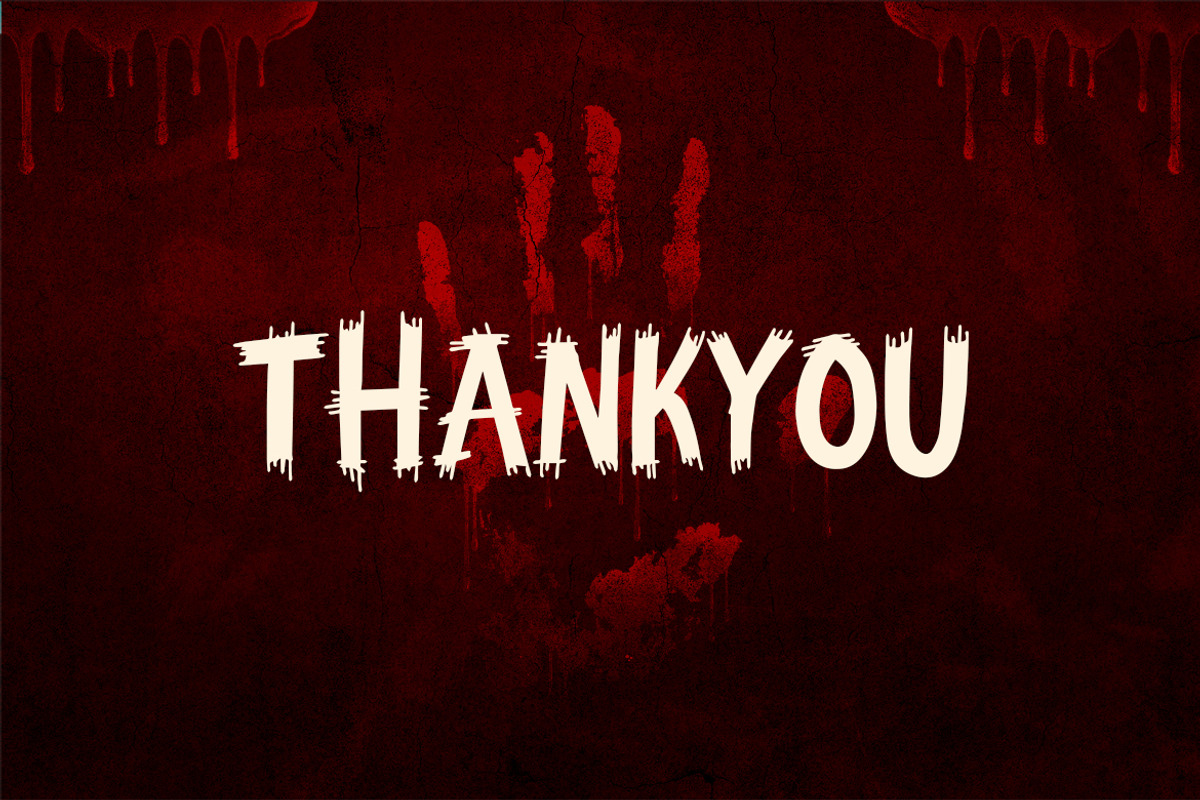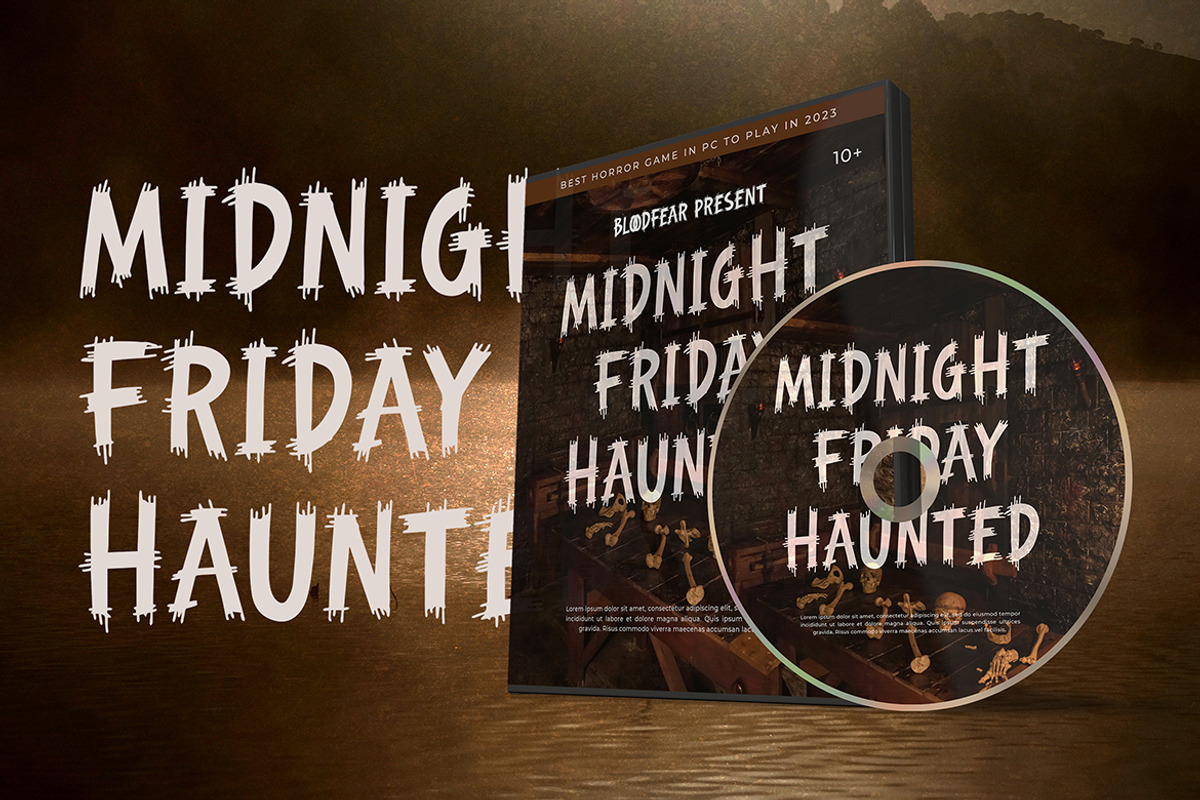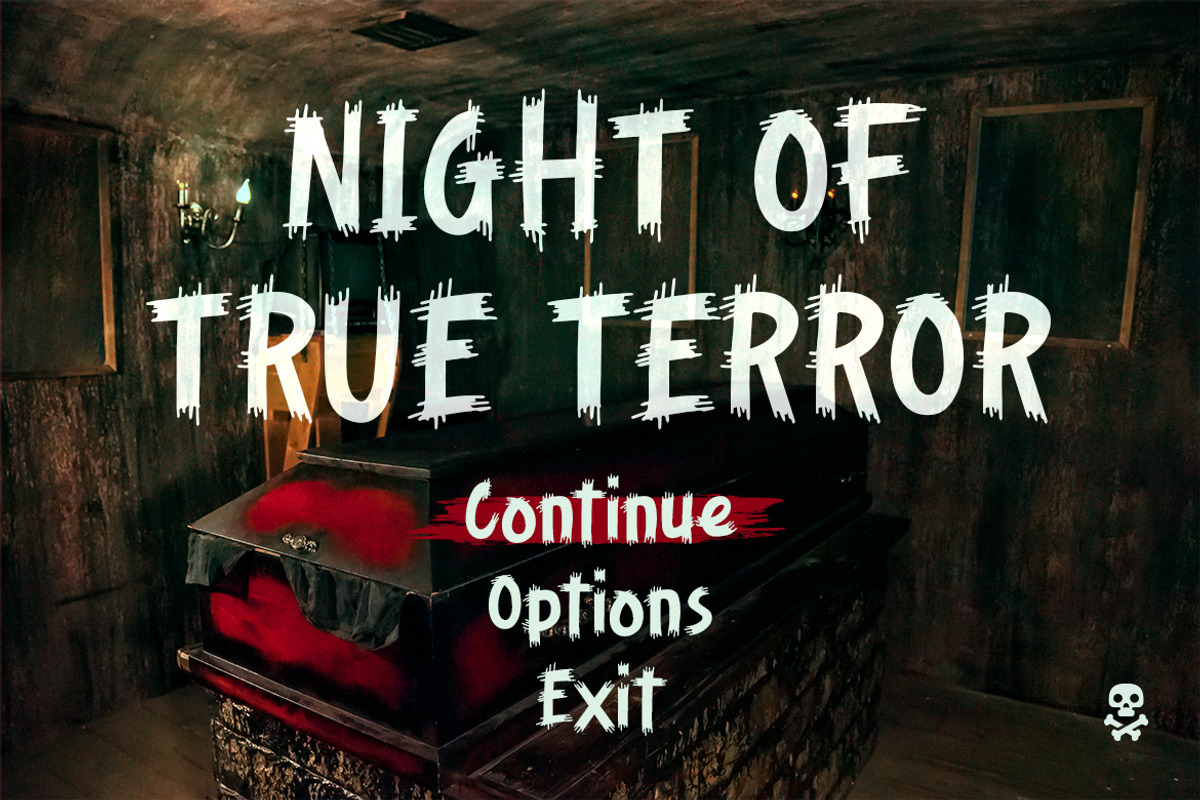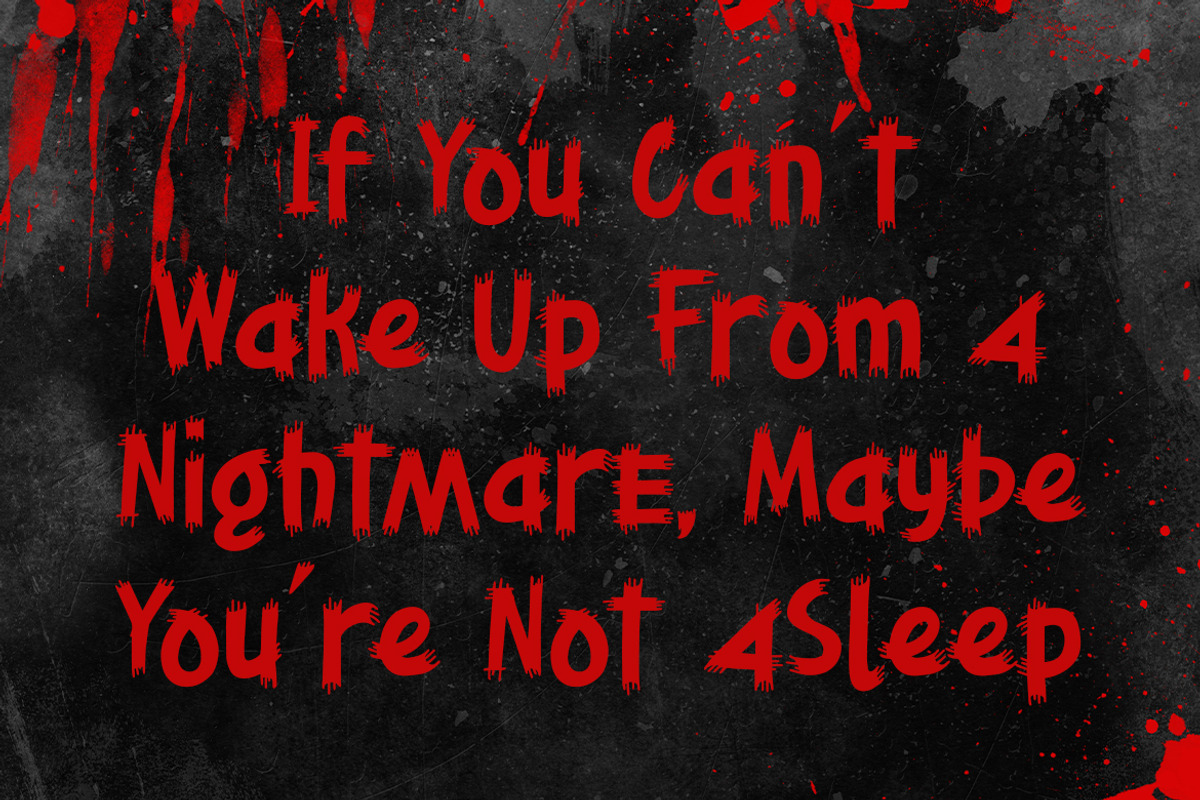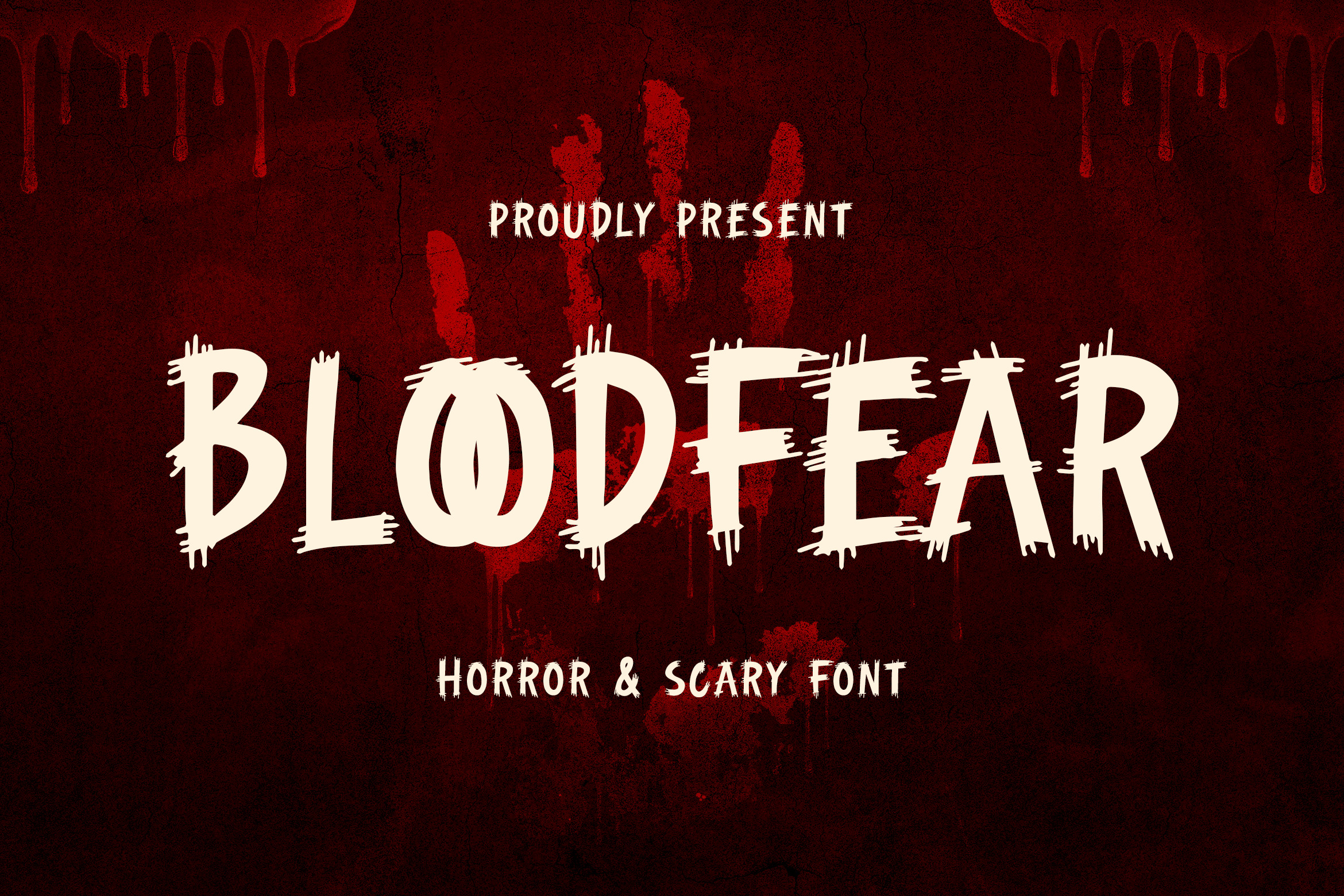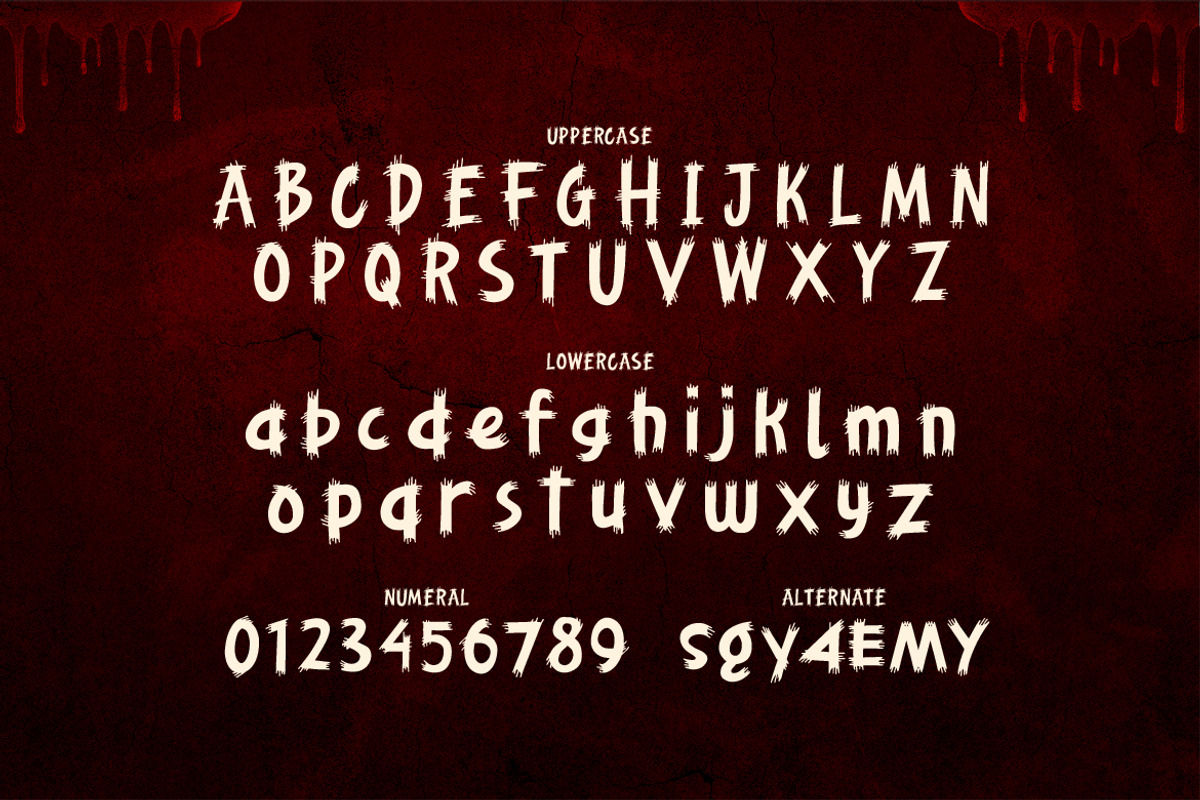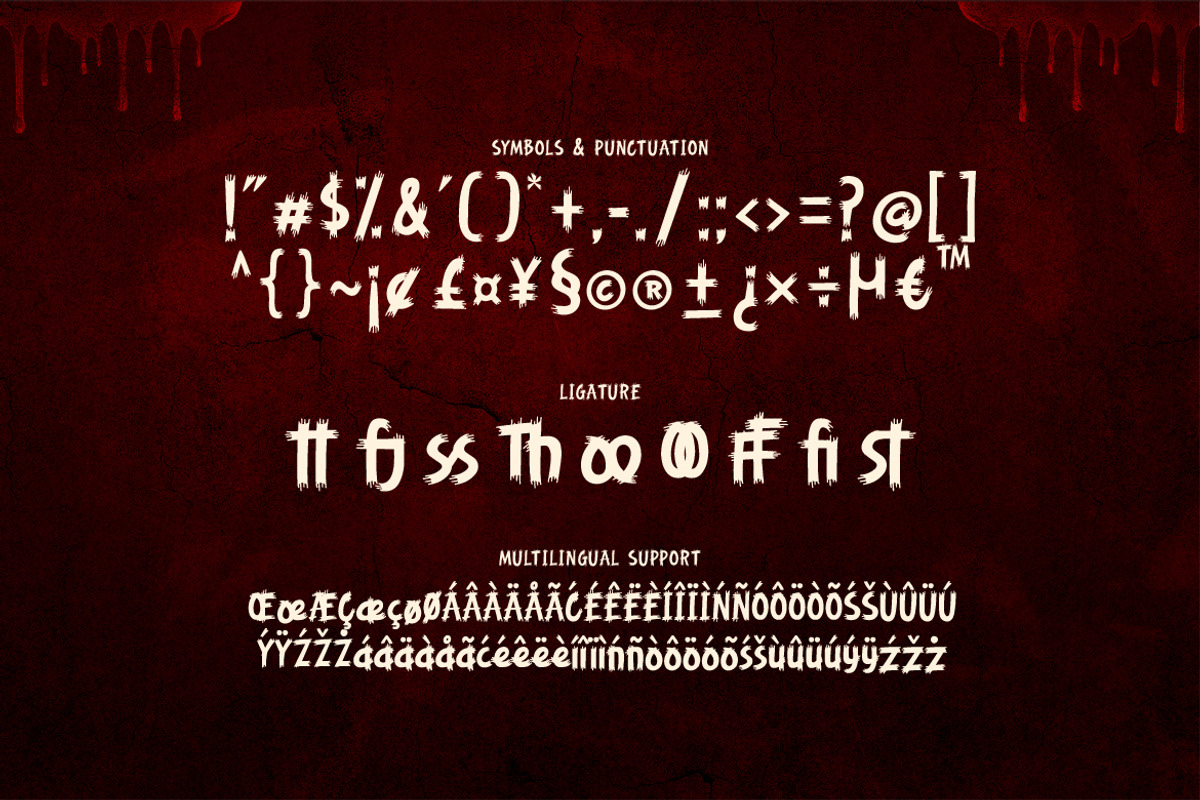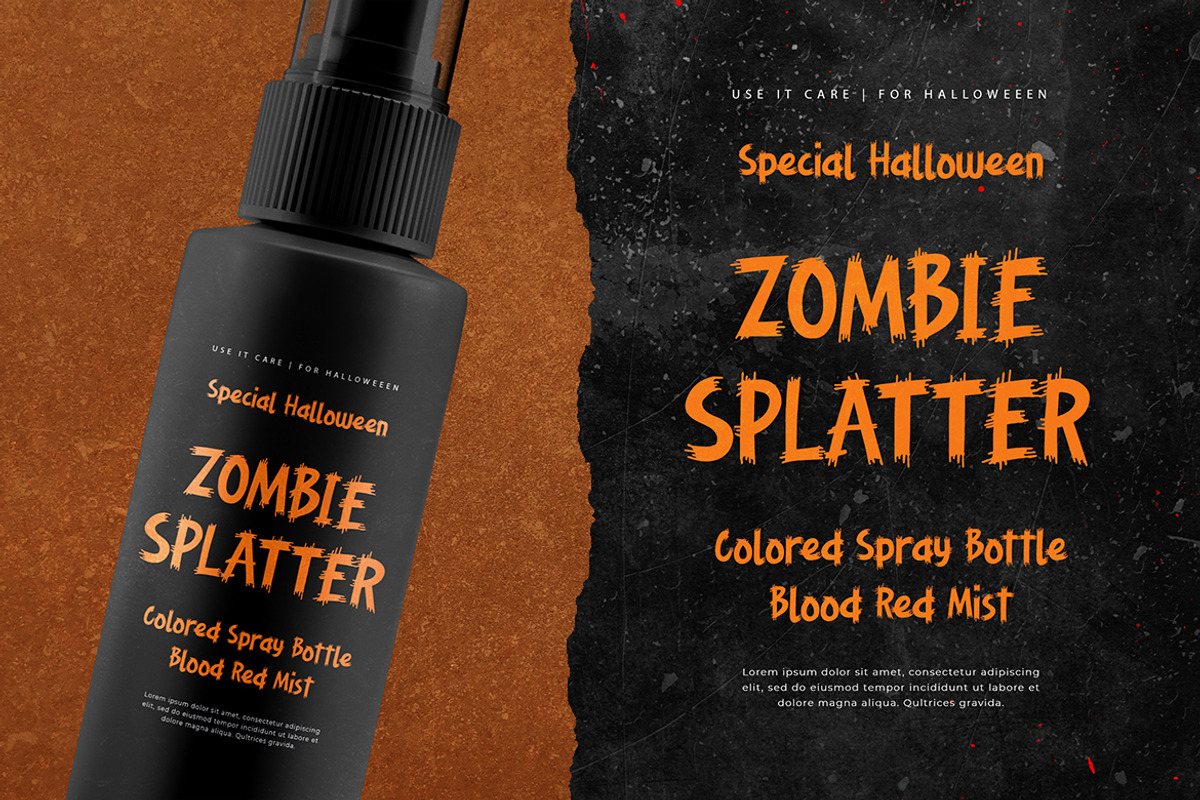
Bloodfear - Horror and Scary Font
Introducing Bloodfear - a horror and scary font that will send shivers down your spine. This font features a terrifying design that is perfect for projects that require a touch of fear and horror.
Bloodfear is a versatile font that can be used for a variety of projects, including book covers, posters, branding, packaging, logos, and more. Its spooky and unsettling design makes it a great choice for designs that need to create an eerie atmosphere.